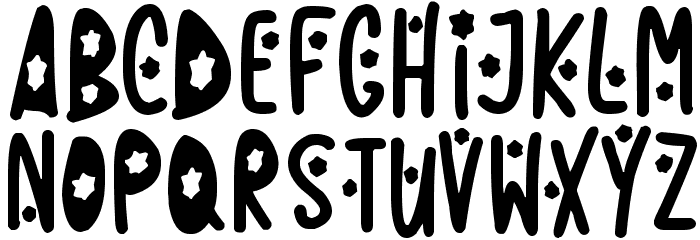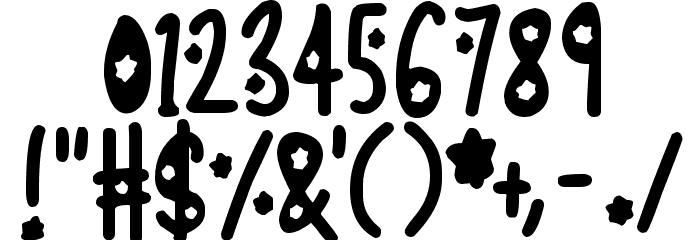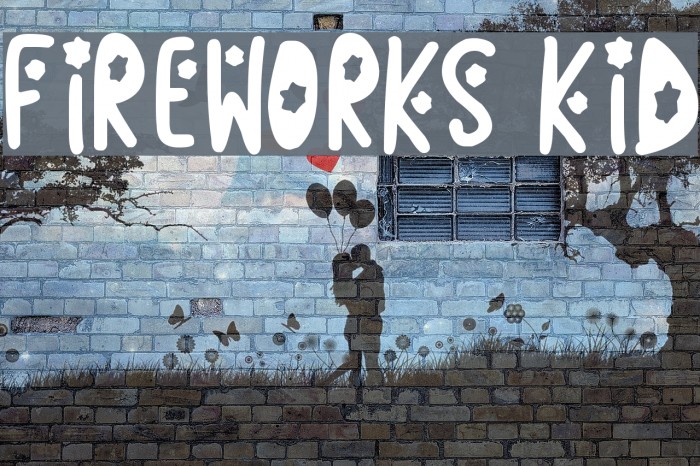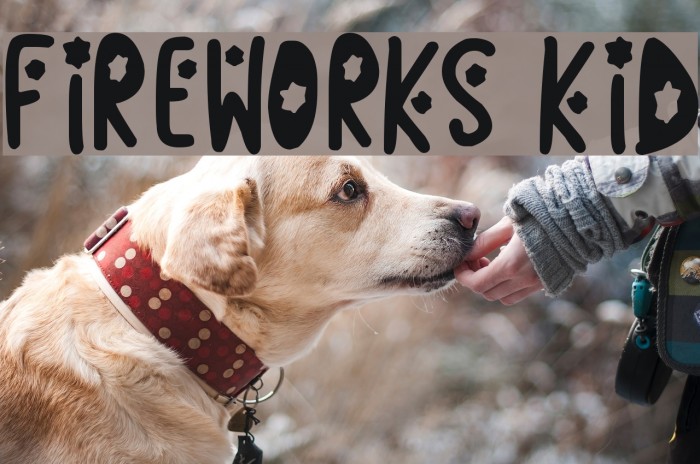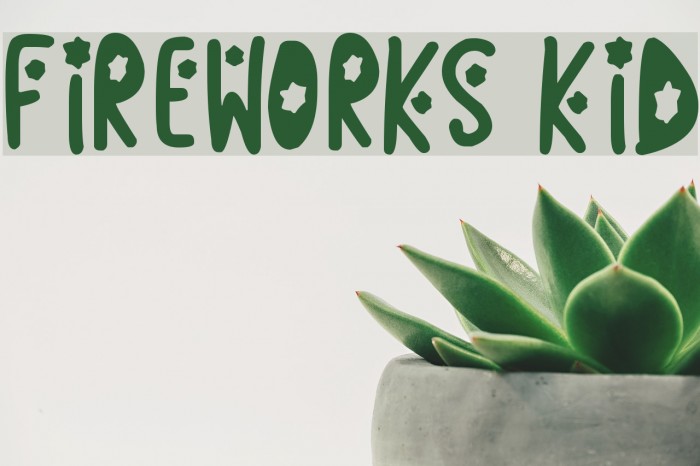
Fireworks Kid Font
This playful and whimsical font features bold, rounded characters with unique star and dot embellishments within each letter. The design is highly decorative, with a fun and energetic vibe that makes it stand out. The uppercase and lowercase letters maintain a consistent style, while the numbers and special characters are equally adorned with star motifs. This font is perfect for projects that require a lively and youthful touch, such as children's books, party invitations, or playful branding. Its bold appearance ensures it captures attention, making it ideal for headlines and logos.
A playful, star-embellished decorative font with bold, rounded characters.
- Proposed Projects: Children's books, party invitations, playful branding, headlines, logos.
- Overall Style: Playful, Whimsical, Energetic
- Use Case: Headlines, Logos, Invitations